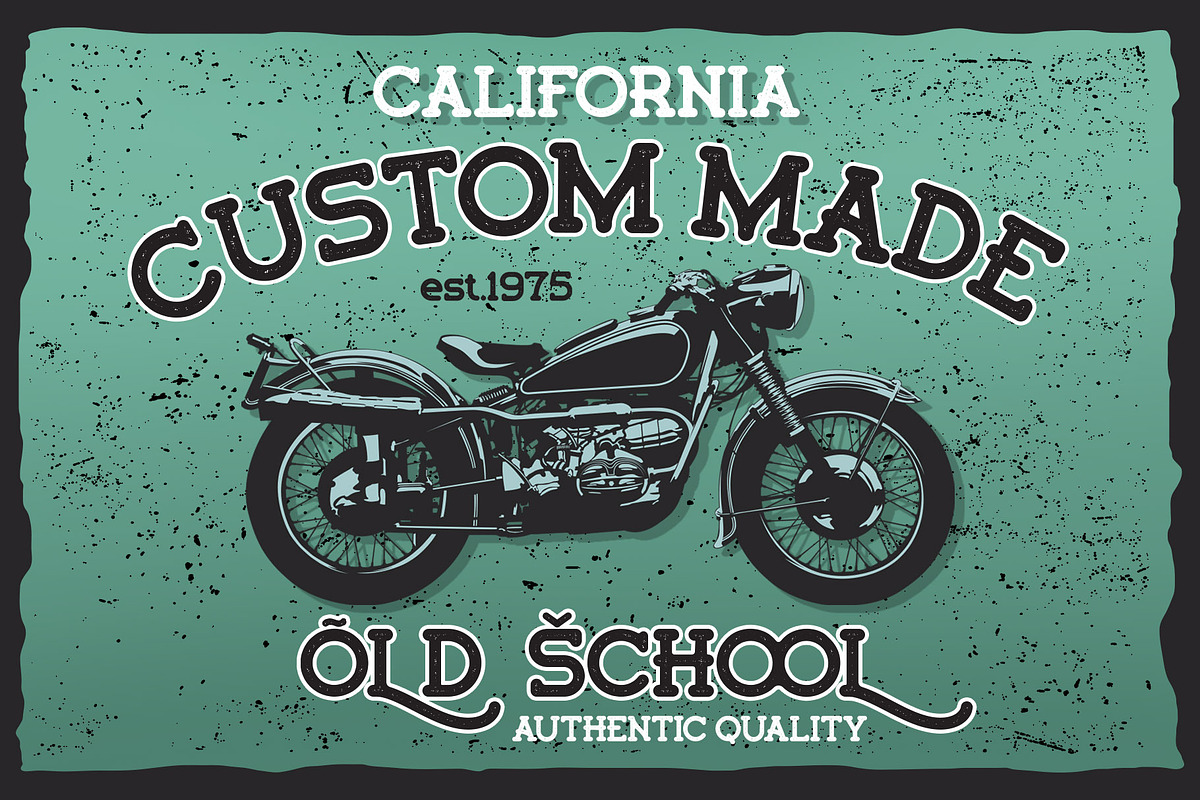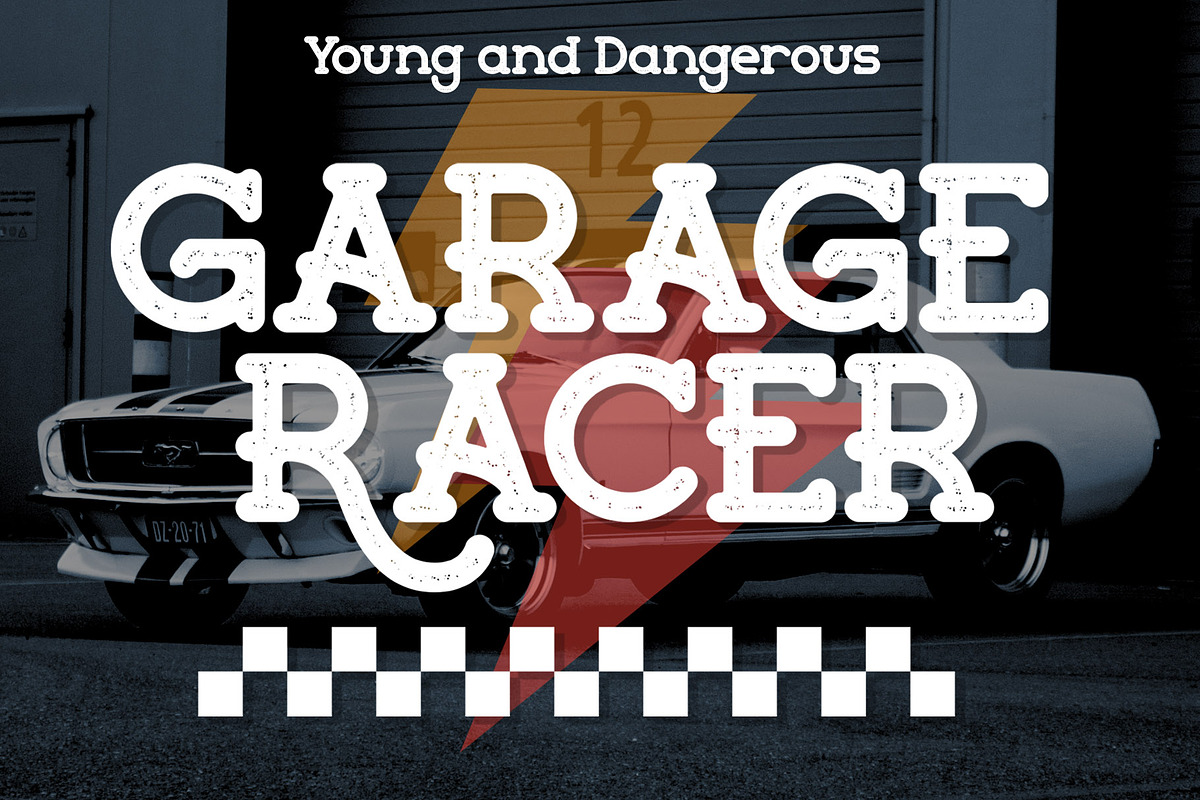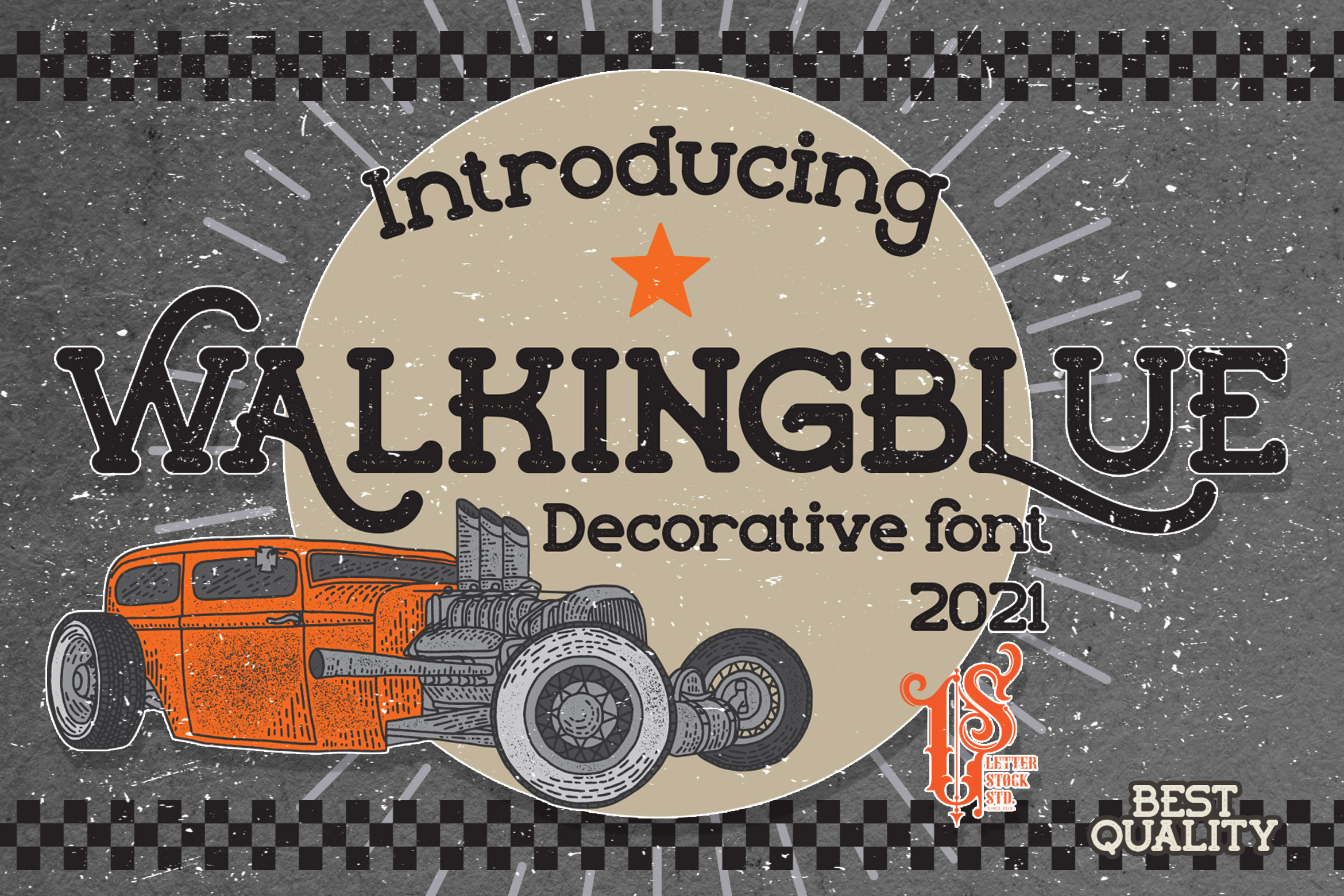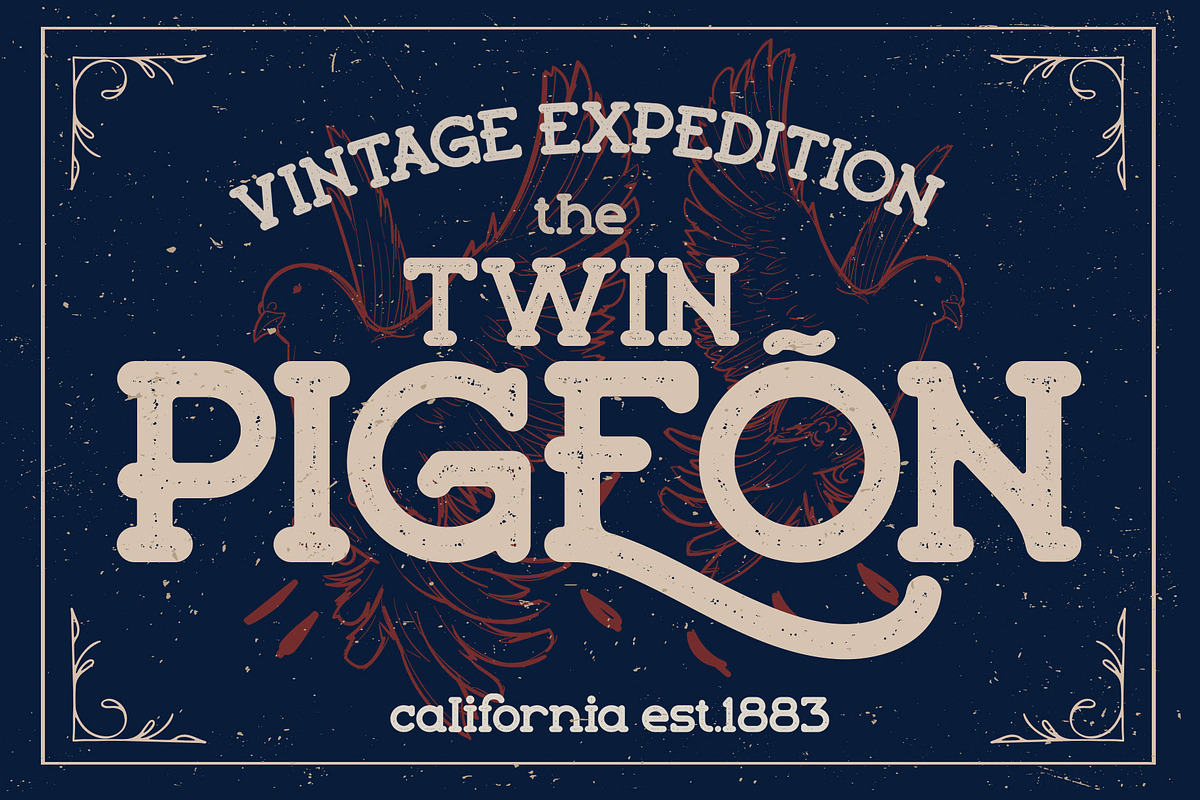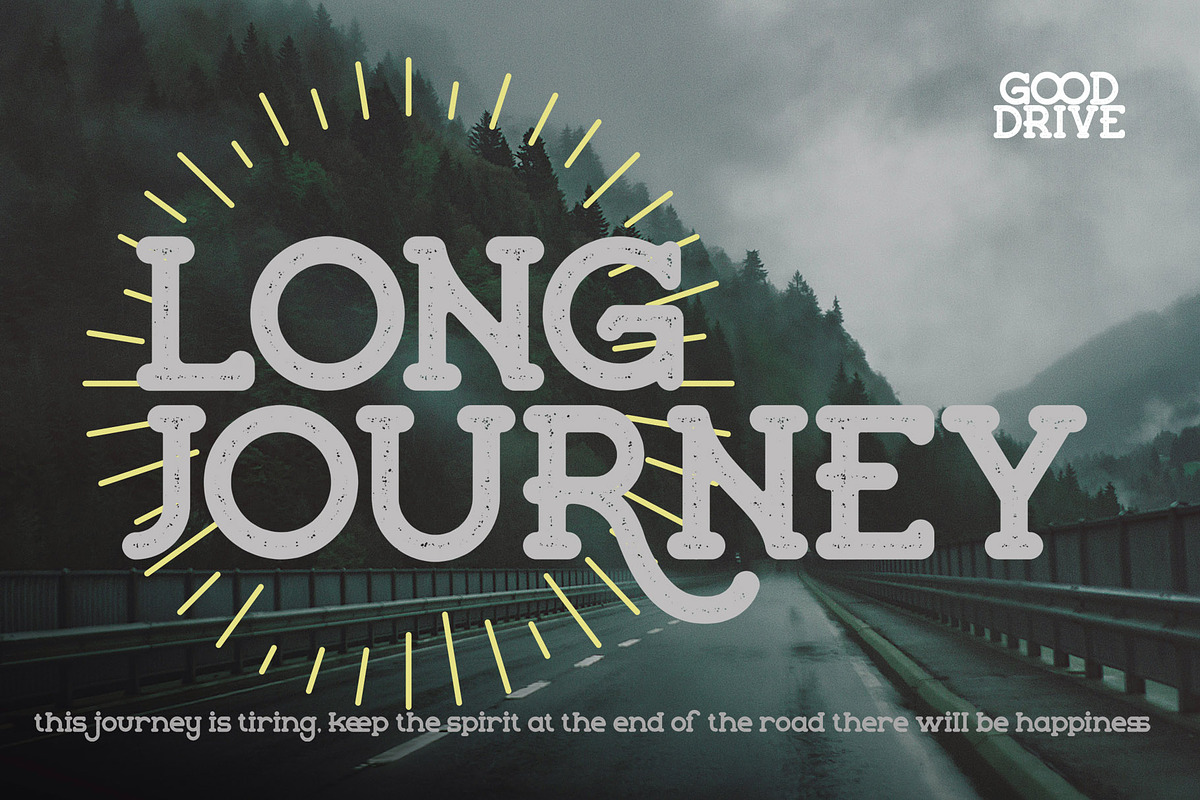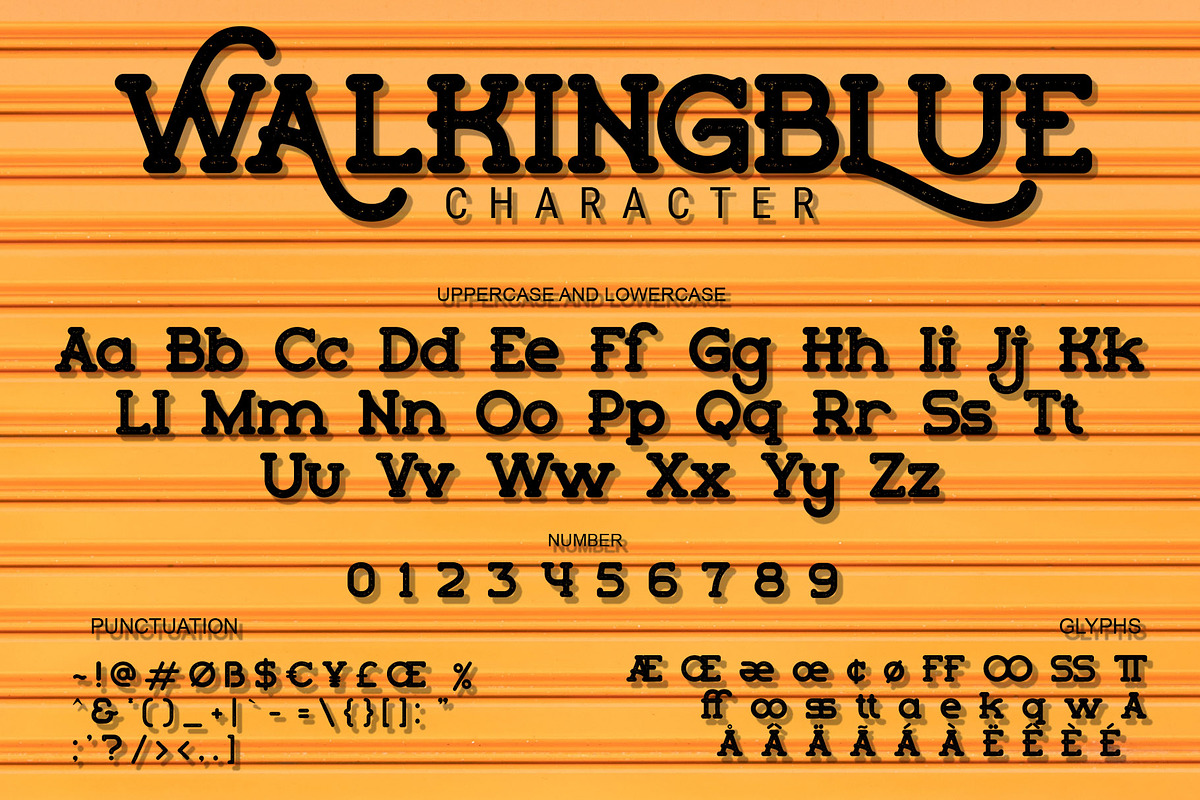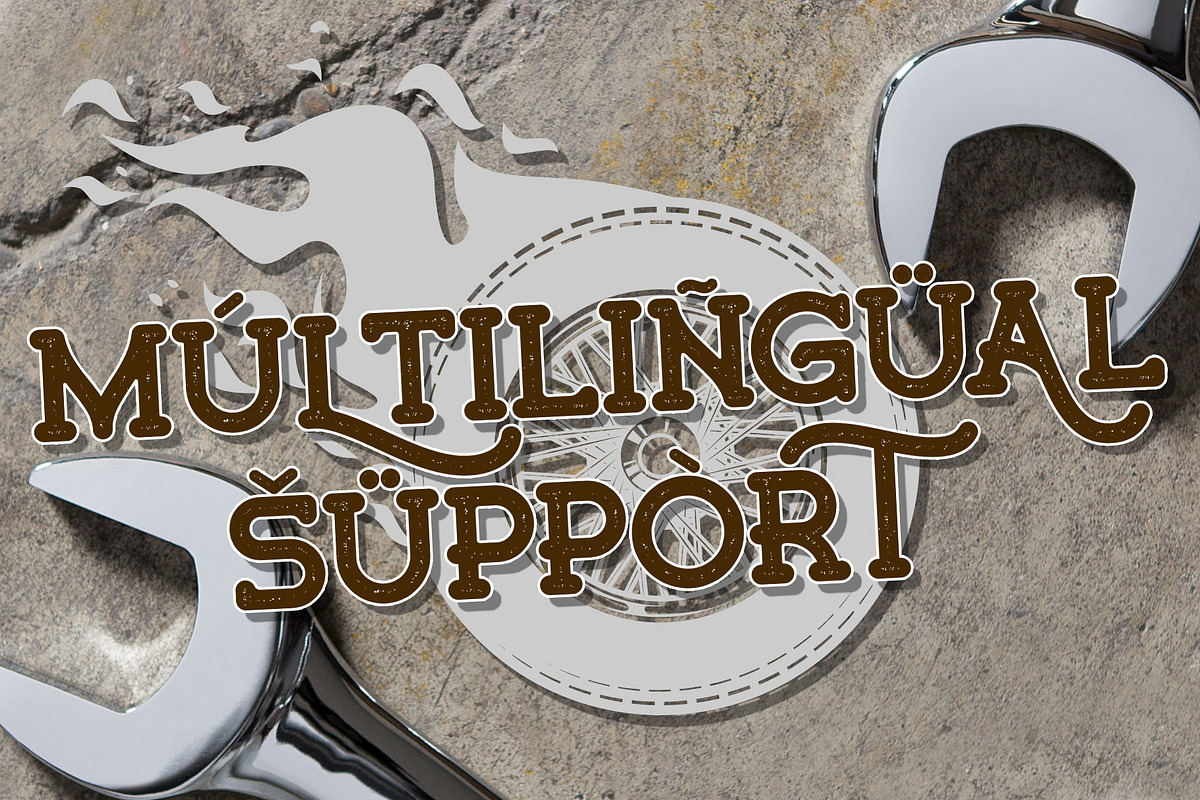
Walkingblue - Retro Rough Font
Walkingblue
This pair was inspired by old motorcycle poster design that i saw on some gellery, It was crafted by hand specially to add natural handmade feeling in its brand identity than i make it clean with pentool.
We add some rough to make it retro feel, this font is bold so it can look strong if you use it for branding or even title for your retro poster design.
Opentype features Walkingblue font has 204 character set included Walkingblue Font is very good looking in retro rough logotype, labels, t-shirt prints, product packaging, invitations, advertising and others.